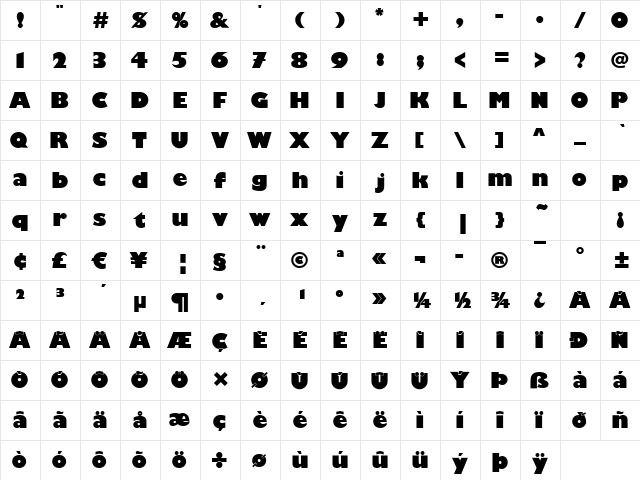
Chantilly-Display-Poster Regular
Design Context for Chantilly-Display-Poster Typeface
Chantilly-Display-Poster is built around its visual character rather than neutral utility — its distinctive forms are designed to make an impression at display sizes.
Font Pairing: Pair with a clean neutral sans-serif for body copy to let Chantilly-Display-Poster's character lead without overwhelming the composition.
Pro Tip: Use Chantilly-Display-Poster exclusively at display sizes — it was designed to be seen, not read at length. Let a neutral companion handle body copy.